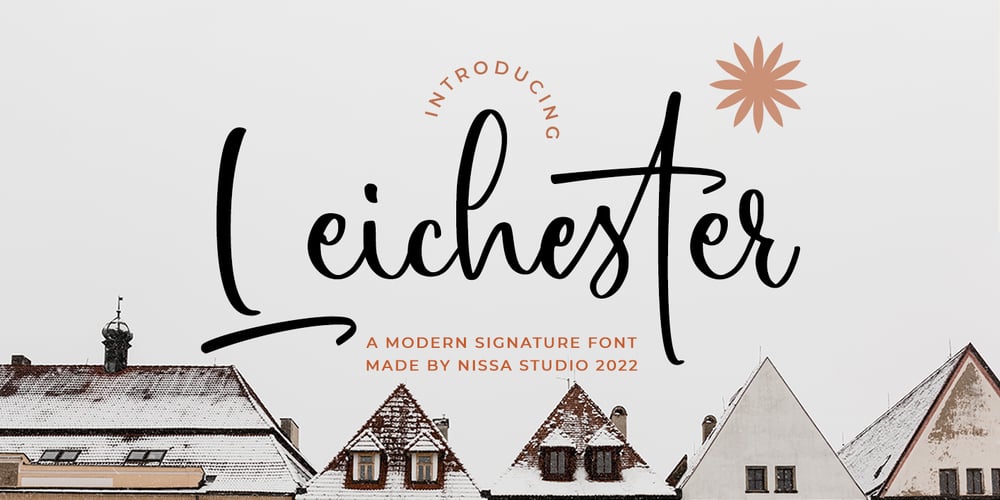
Leichester Font Family was designed by Novia Himatunnisa and published by Nissa Nana. Leichester contains 1 styles and family package options. Leichester is a sweet, soft hand-lettered font. Fall in love with its authentic feel and use it to create gorgeous wedding invitations, beautiful stationary art, eye-catching social media posts, and cute greeting cards.